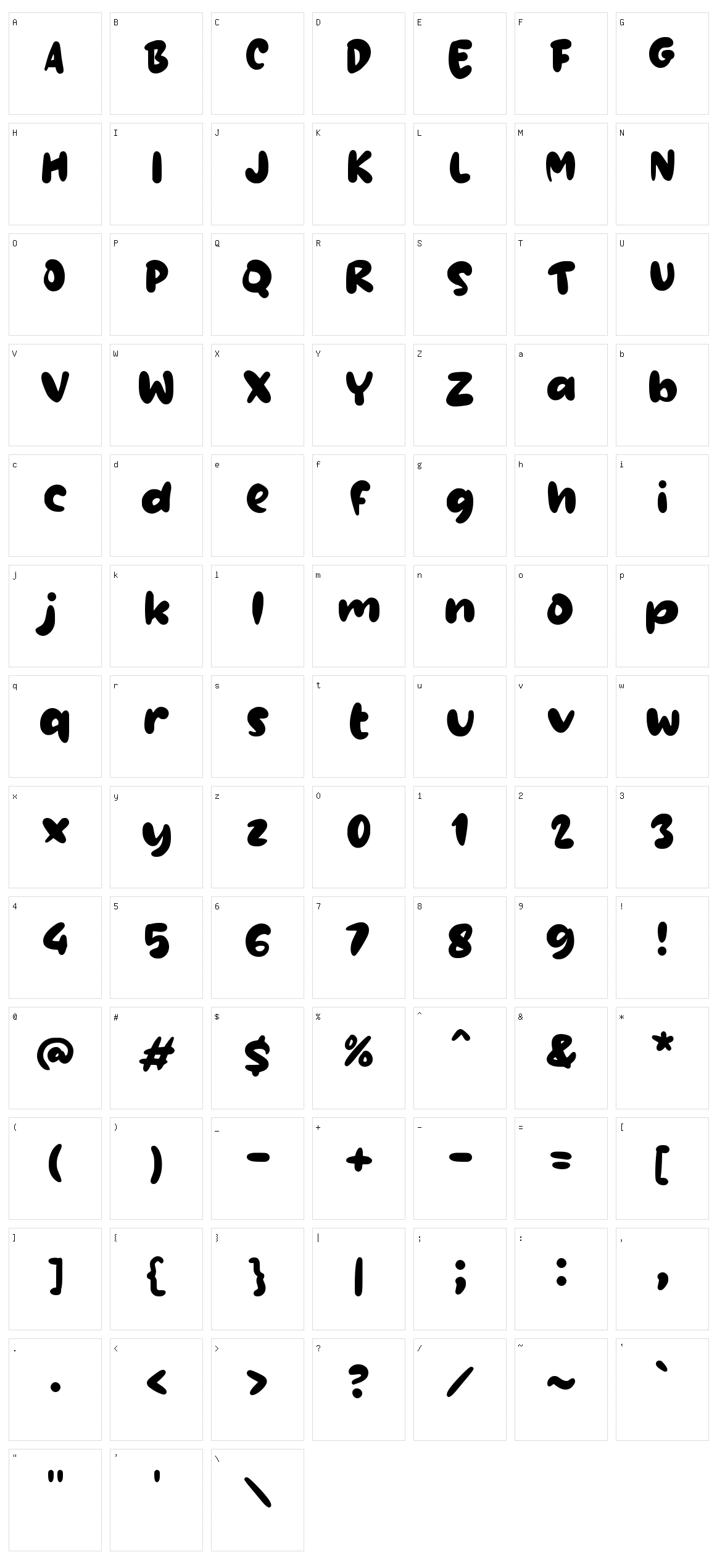
The free font g Gombal is carefully designed by wep, showcasing a thoughtful balance of creativity and usability and falls under the Cartoon font style. When you download the ZIP file, it contains only 12 KB of font files, making it lightweight and quick to download. Please review the license details below to understand permitted usage and distribution rights. If license information is not available, we recommend using this font for personal projects only or contacting the author directly for commercial usage permissions.